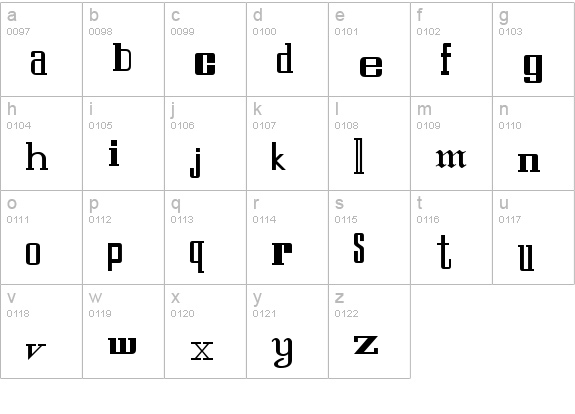
Steven Saint Font Details
Steven Saint font is a timeless and elegant typeface that exudes sophistication and charm. With its classic yet modern design, this font is perfect for a wide range of design projects, from branding to editorial design. What sets Steven Saint font apart is not only its stylish appearance but also the fact that it is available for free download at FontsMarket.com. This means that you can easily access this beautiful font and use it in your projects without any cost. Whether you're working on a logo, website design, or any other creative endeavor, Steven Saint font will bring a touch of class and refinement to your work. Its versatility and easy readability make it a versatile choice for any design project. Download Steven Saint font today and elevate your designs with its exquisite style.